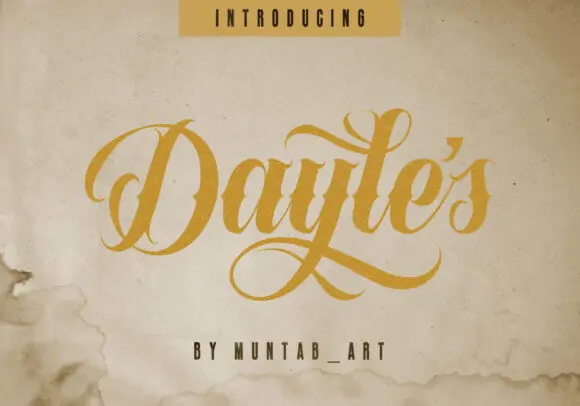
Some of these fonts’ decorative strokes and beautiful tails are downright mind-blowing. Keep scrolling to see the most amazing fonts to help you effortlessly craft like a pro designer. From modern and cursive to vintage, I curated the best calligraphy fonts for Cricut to help you design in any style.
1. Hey Lovely Hearts
Best Overall Calligraphy Font for Cricut
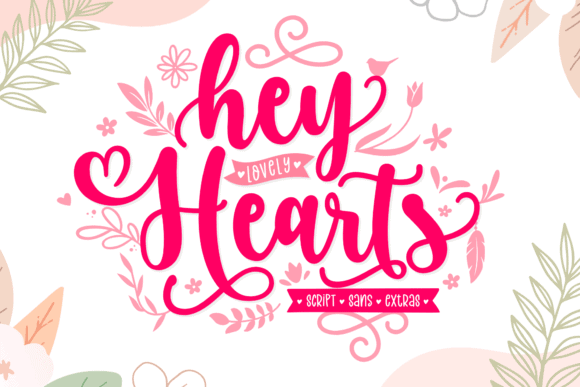
Your search for a versatile calligraphy font ends here! This playful font is fantastic for just about any DIY project. Make t-shirts, mugs, wood signs, tumblers, and many more.
The breathtaking swashes, tails, and doodles included in the font make it super easy to create unique designs quickly.
The Hey Lovely Hearts font is a Cricut font pairing that includes a fun sans version. The sans version of the font works seamlessly with the calligraphy version to create beautiful designs.
2. Villie
Most Popular Calligraphy Font for Cricut
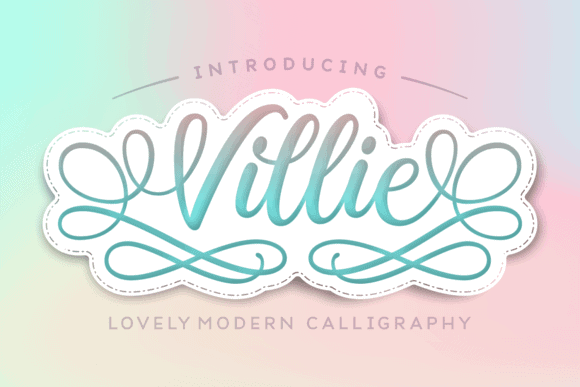
Villie is a calligraphy font for Cricut with beautiful flourishes. This flowy font with decorative letters will help you turn any craft into a piece of art.
The Villie font is perfect for your home decor, wedding, and holiday Cricut projects. Also, you can easily personalize crafts with names using this font. By the way, this super-smooth font can easily cut vinyl.
3. Beautiful
Best Modern Calligraphy Font for Cricut
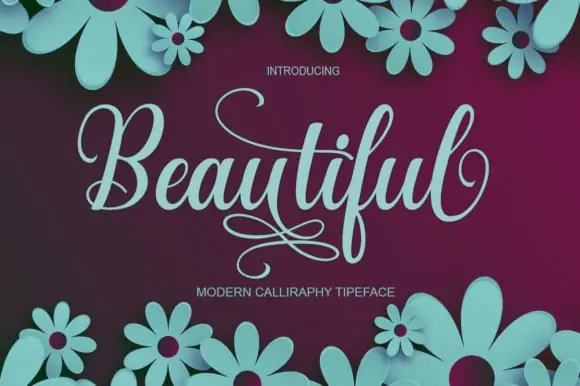
Beautiful is a modern calligraphy font for Cricut that will add an elegant touch to your crafts. This delicate handwritten font with gorgeous swashes will be your go-to for creating unique crafts.
Additionally, the font comes with beautiful tails that are guaranteed to make your Cricut crafts even more special. The beautiful font is perfect for making wood signs, holiday crafts, and wedding gifts.
4. Little Love
Best Wedding Calligraphy Font for Cricut
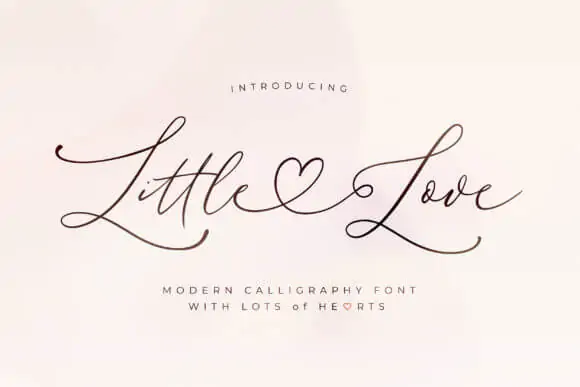
Your hunt for the perfect wedding calligraphy font ends here! Little Love is an ethereal font with the most beautiful connecting hearts and tails.
Little Love is perfect for making welcome wedding signs, invitations, bridesmaids’ t-shirts, tote bags, and many more. This font will transform text, be it names or quotes, into something extraordinary. You can also join names with a connecting heart to create wedding decor and gifts.
5. The Romantic Absolute
Best Handwritten Calligraphy Font for Cricut
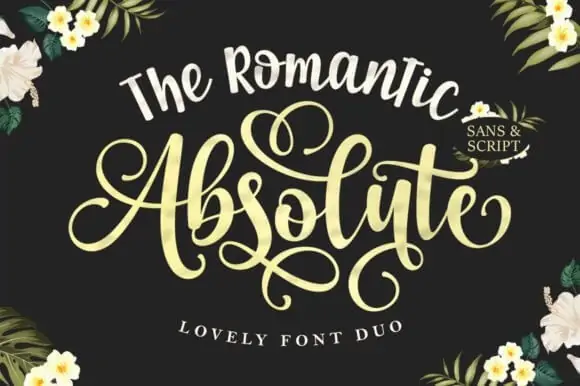
The Romantic Absolute is a gorgeous calligraphy font for Cricut with thick letters. Make beautiful typographic creations with this stunning handwriting font.
Each letter in the font has multiple alternates that will help you make truly unique designs. This handwriting calligraphy font is perfect for adding a touch of playfulness to your Cricut crafts.
6. Switzerland
Best Fancy Calligraphy Font for Cricut
Get ready to fall in love with one of the most stunning calligraphy fonts I have ever seen – Switzerland. This classic typography font with elegant swashes and tails will add a fancy touch to your crafts.
The letters have varying stroke thicknesses reminiscent of writing with an ink pen. This delicate font is a perfect choice for making memorable gifts and decor for special occasions.
7. Lettering Delight
Best Cute Calligraphy Font for Cricut
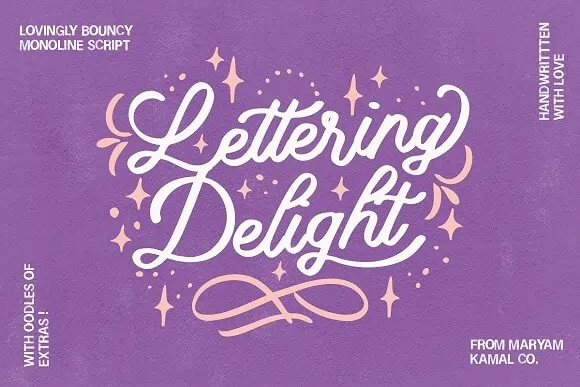
Lettering Delight is a calligraphy font for Cricut that will add a feminine touch to your designs. This hand-lettering font comes with many fun swashes, flourishes, and doodles to create one-of-a-kind designs.
No matter the occasion – Mother’s Day, birthday, Christmas, or just because, Lettering Delight will take your typographic creations to the next level.
8. Forever Love
Best Decorative Calligraphy Font for Cricut
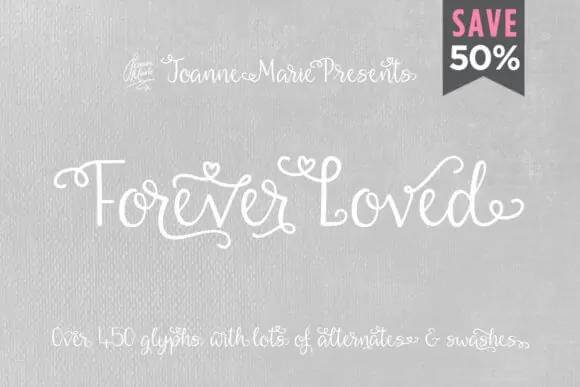
Love to add a touch of whimsical flair to your crafts? Then, what you need precisely is the Forever Love font!
If you are obsessed with making farmhouse-style designs like me, then this font will be your go-to option. This calligraphy font with a storybook feel is perfect for creating home decor, wedding, and baby-themed designs.
9. Steelheart
Best Stylish Calligraphy Font
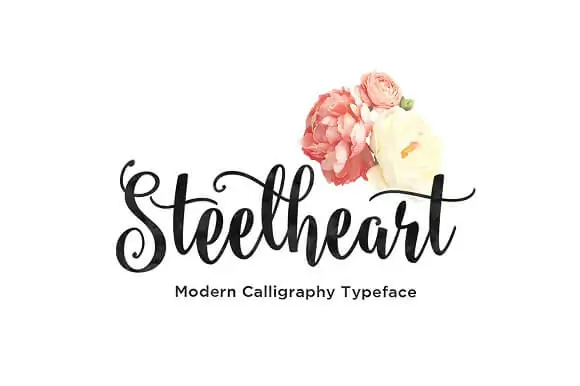
Steelheart is a trendy calligraphy font for Cricut I use for creating seasonal crafts. Fall doormats, baby bodysuits, and Christmas wood signs turn out amazing with this font. It comes with tons of stylistic alternates that are fun to play with and perfect for creating unique crafts.
This bold font effortlessly imbibes your Cricut crafts with a vintage look. It is perfect for making elegant wood signs, T-shirts, can coolers, and more.